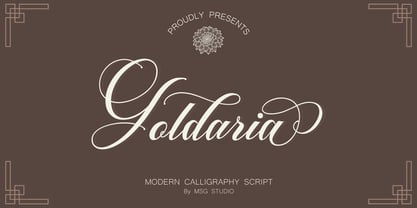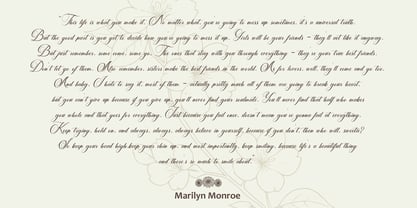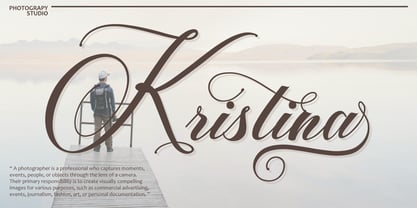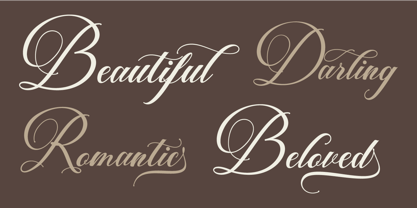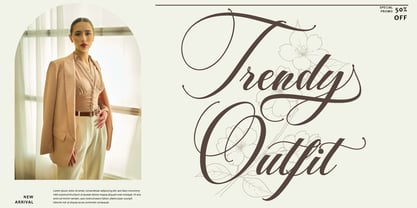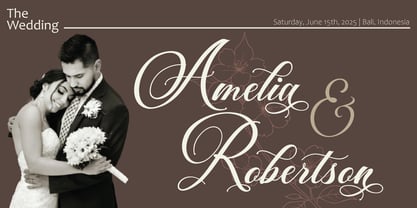
Goldaria
by Masinong Studio
The Goldaria Font Family was designed by Fajriadi and published by Masinong Studio. Goldaria contains 1 styles. More about this family
Goldaria
Elegant and timeless, this script calligraphy font brings a touch of classic sophistication to your designs. Inspired by traditional handwritten lettering, it features fluid strokes, graceful curves, and delicate flourishes that create a sense of refined beauty. Perfect for wedding invitations, branding, greeting cards, and elegant logos, this font exudes charm and romantic appeal. Its versatile style works beautifully in both formal and artistic projects, adding a luxurious handwritten feel to any composition.
Designers: Fajriadi Fajriadi
Foundry: Masinong Studio